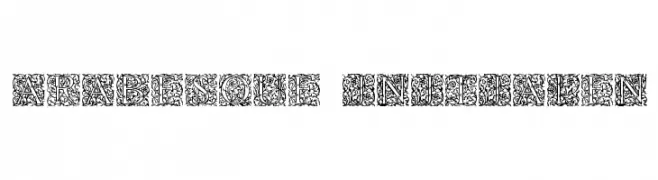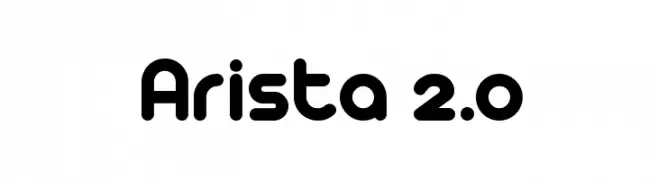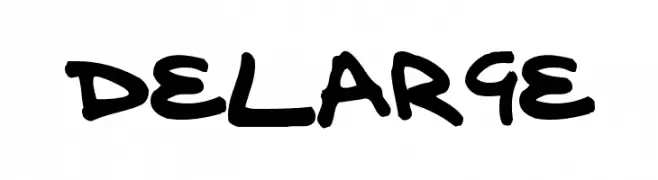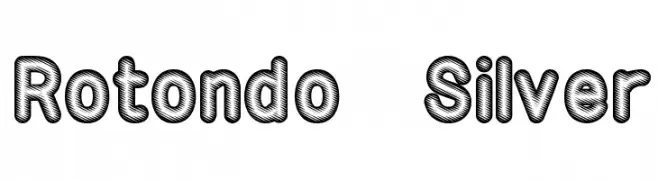
A modern, rounded font with a playful and geometric style.
A bold, energetic handwritten font with thick strokes and dynamic flow.
A bold, decorative font with a unique diagonal striped pattern.
An ornate, arabesque-style font with intricate decorative patterns.
A playful, rounded font with smooth curves and a friendly appearance.